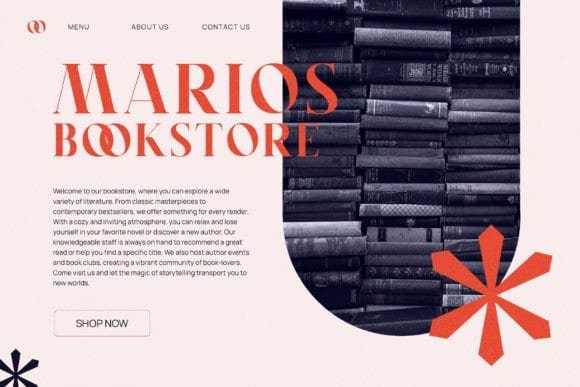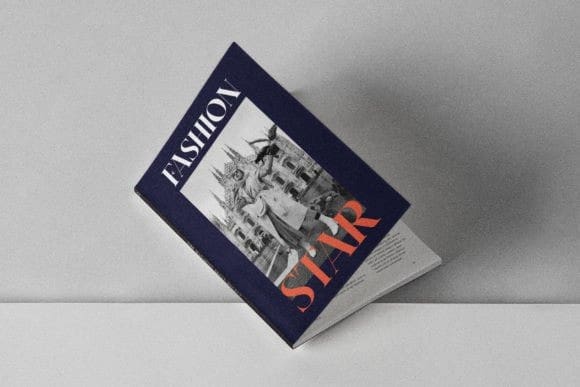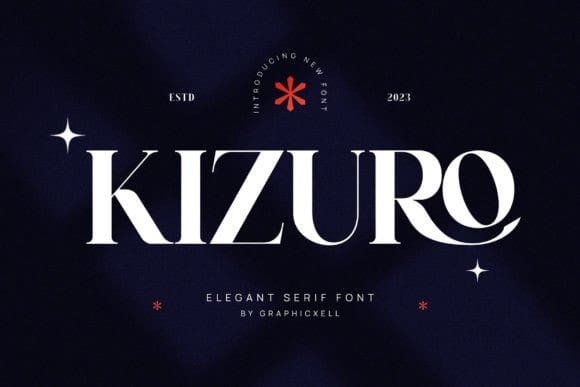
Kizuro Font
Kizuro Font is a unique and very elegant font for branding and logo designs. Elegant serif typeface combined with a classy and modern style. This type of font is very suitable for your various needs such as branding projects, logos, wedding designs, social media posts, advertisements, product packaging, product designs, labels, photography, watermarks, invitations, stationery, and any project, created with high level of readability.